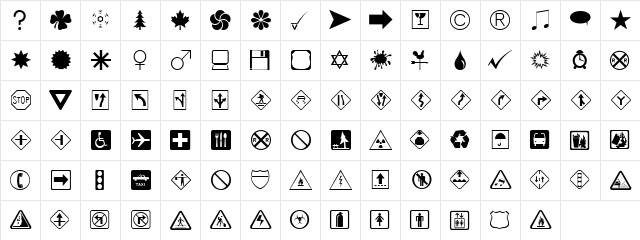
DingDongs Signs o' the Times
Design Context for DingDongs Typeface
DingDongs takes a measured approach to typography — its balanced proportions and neutral character make it a reliable workhorse for both digital and print work.